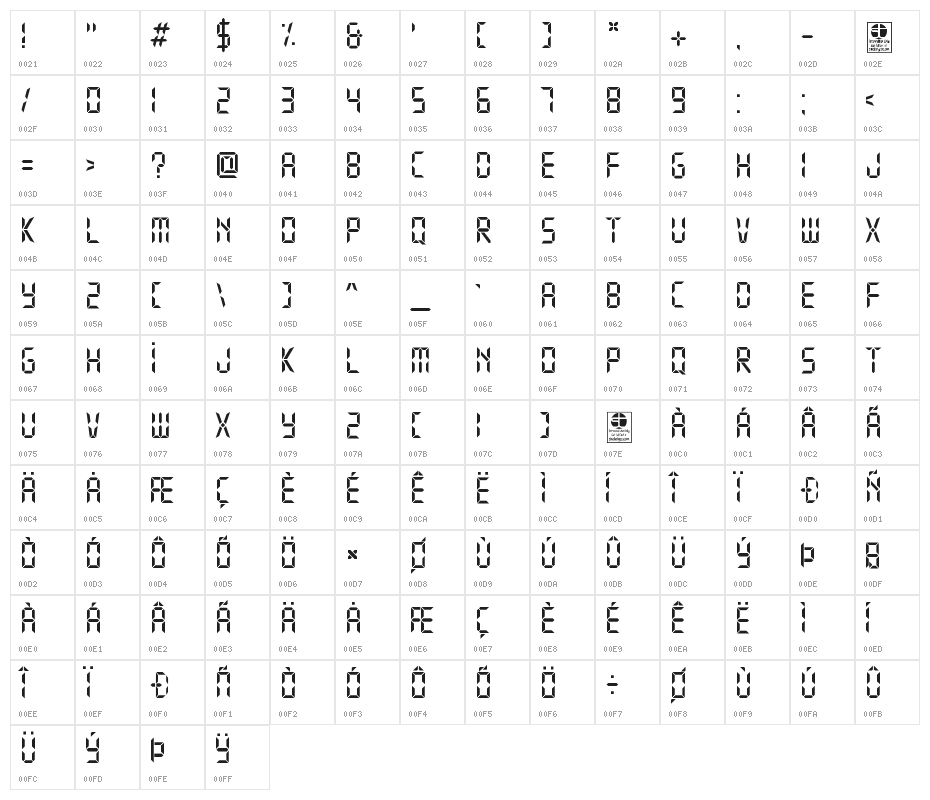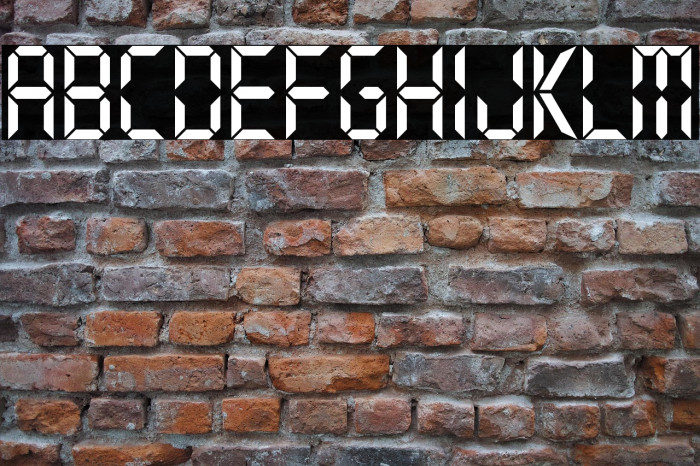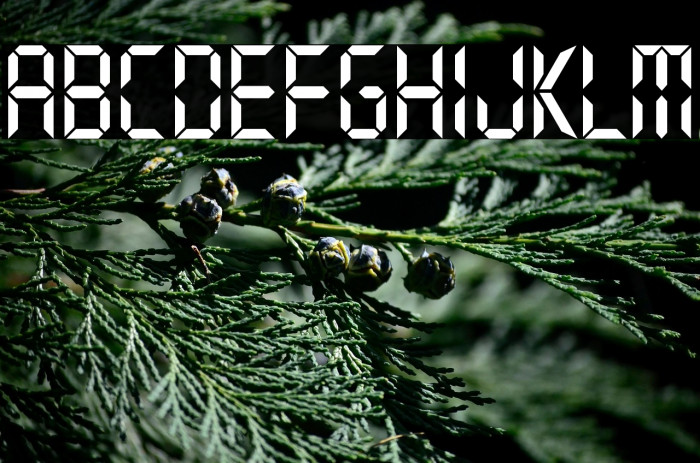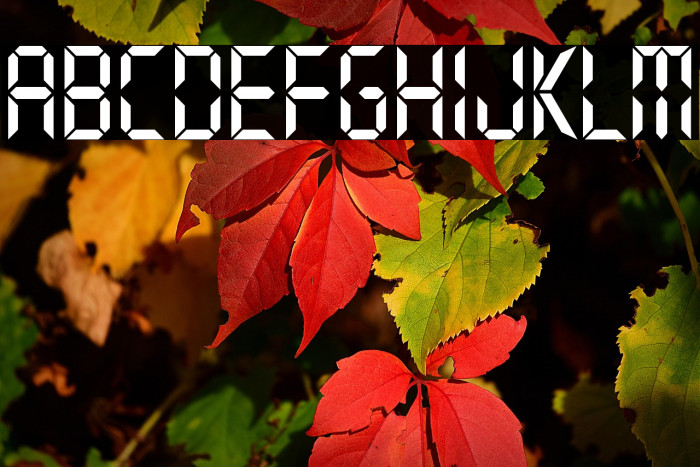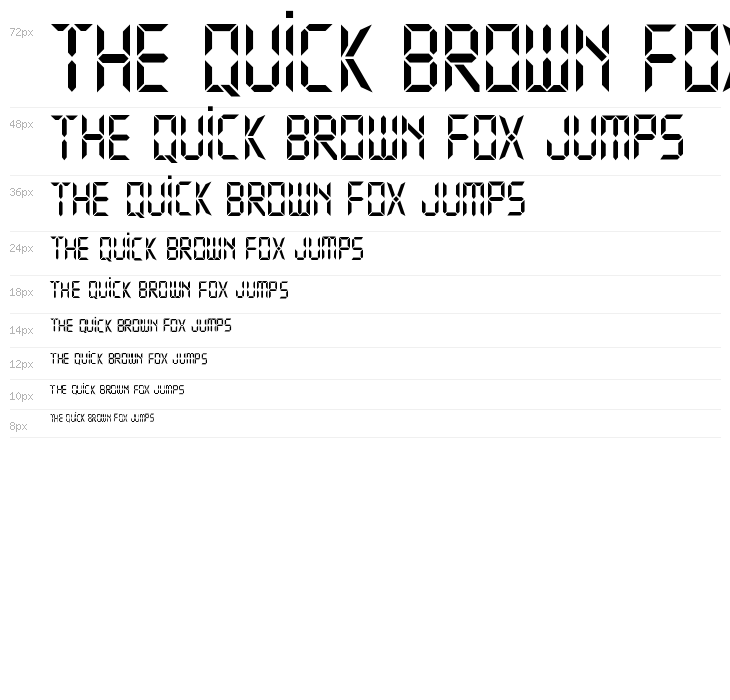
Typo Digit Demo Font
Typo Digit Demo Description
This font exhibits a digital, geometric style reminiscent of LED or LCD displays. Each character is constructed with angular, block-like segments, creating a futuristic and technical appearance. The uniformity and precision of the shapes give it a mechanical feel, suitable for digital or tech-themed designs. The characters are bold and distinct, ensuring high readability even at smaller sizes. The font's unique structure makes it stand out, ideal for projects that require a modern and innovative touch.
| Use Case | Headlines, Logos, Digital displays |
| Proposed Projects | Ideal for digital interfaces, tech branding, futuristic posters, and electronic device displays. |